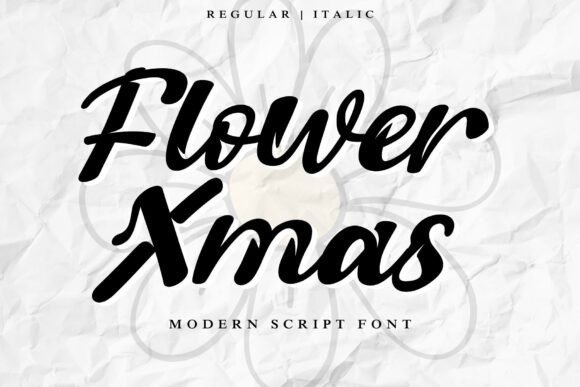
Unlock the Magic of Flower Xmas Font
Have you ever stared at a blank page, waiting for that spark of creativity to strike? For designers, this moment is a familiar one – the thrill of bringing a vision to life. And what better way to infuse that vision with elegance and whimsy than with the perfect font?
Enter Flower Xmas Font, a modern script font that effortlessly adds an artistic touch to any design project. Whether you’re crafting glamorous wedding invitations, stylish logos, or captivating headlines, Flower Xmas Font elevates the elegance of every application. With its versatility and flair, this font is a valuable asset for designers looking to take their work to the next level.
Key Features of “Flower Xmas Font”
- Unique Characteristics: The “Flower Xmas Font” features intricate, hand-drawn designs and ornaments, adding a touch of elegance and whimsy to holiday-themed projects.
Flower Xmas Font Review
I recently had the chance to work with the Flower Xmas Font, and I must say it’s a unique and creative choice for holiday-themed projects. Here’s my honest review:
- The font’s hand-drawn, floral design is perfect for creating a whimsical and festive atmosphere.
- The font is highly customizable, allowing you to adjust the color, size, and style to fit your project’s needs.
- The font includes a wide range of characters, including uppercase and lowercase letters, numbers, and special symbols.
- The font may not be suitable for formal or professional projects due to its playful and cursive design.
- The font may require additional editing to ensure proper spacing and alignment, especially for longer text blocks.
Overall, I think the Flower Xmas Font is a great choice for designers looking to add a touch of holiday magic to their projects. While it may have some limitations, its unique design and high customization options make it a great addition to any designer’s toolkit.
The Flower Xmas Font is ideal for:
- Christmas card designs
- Holiday invitations
- Seasonal social media posts
- Festive branding and marketing materials